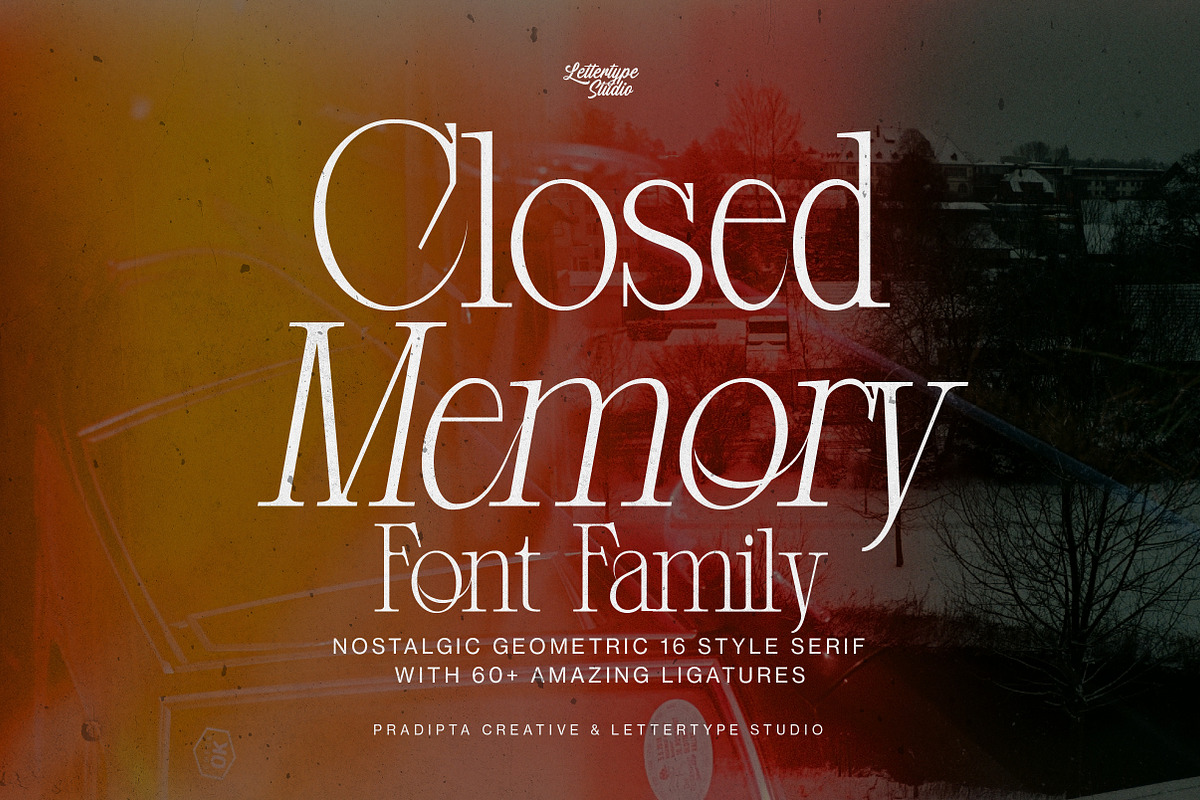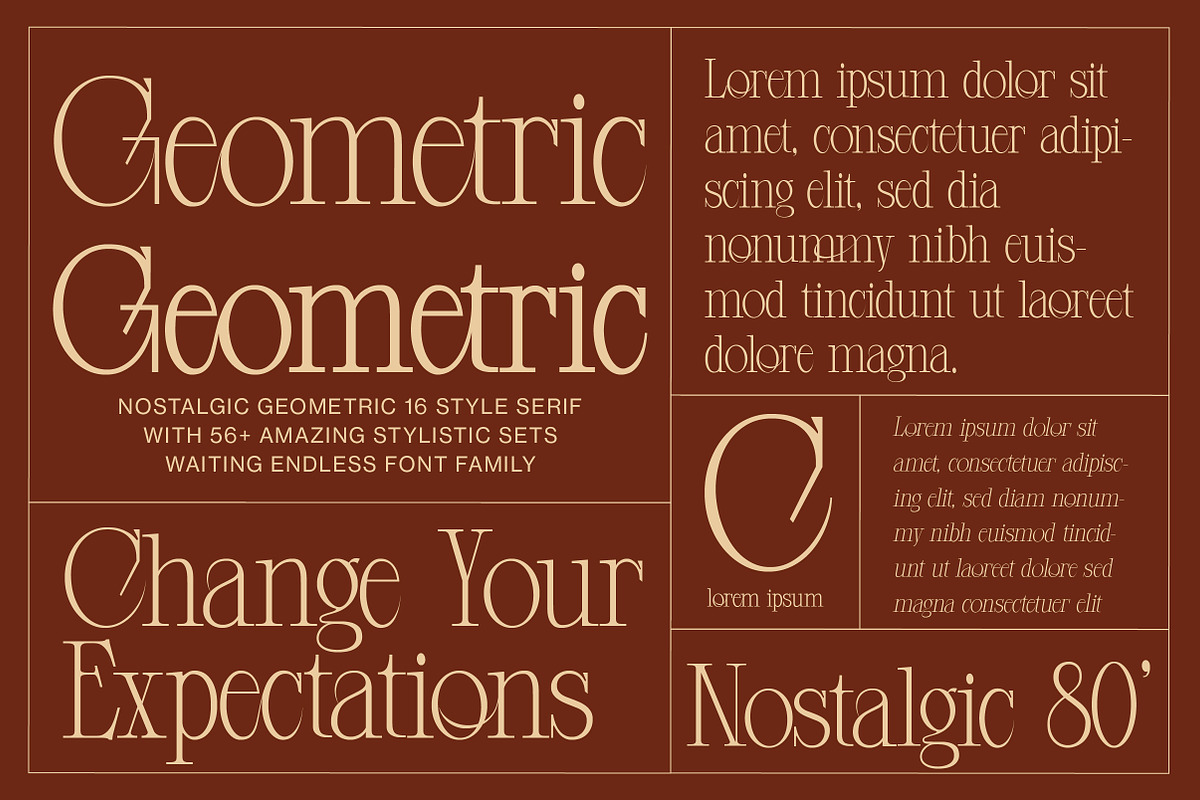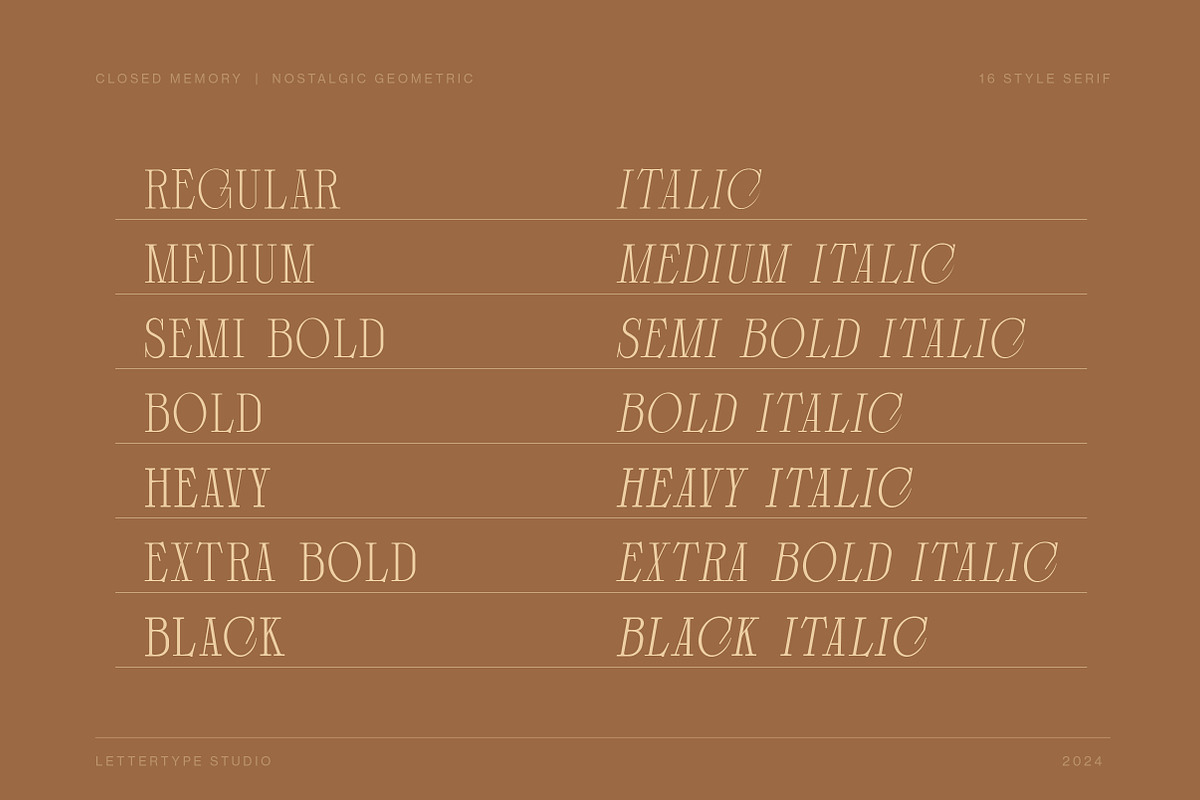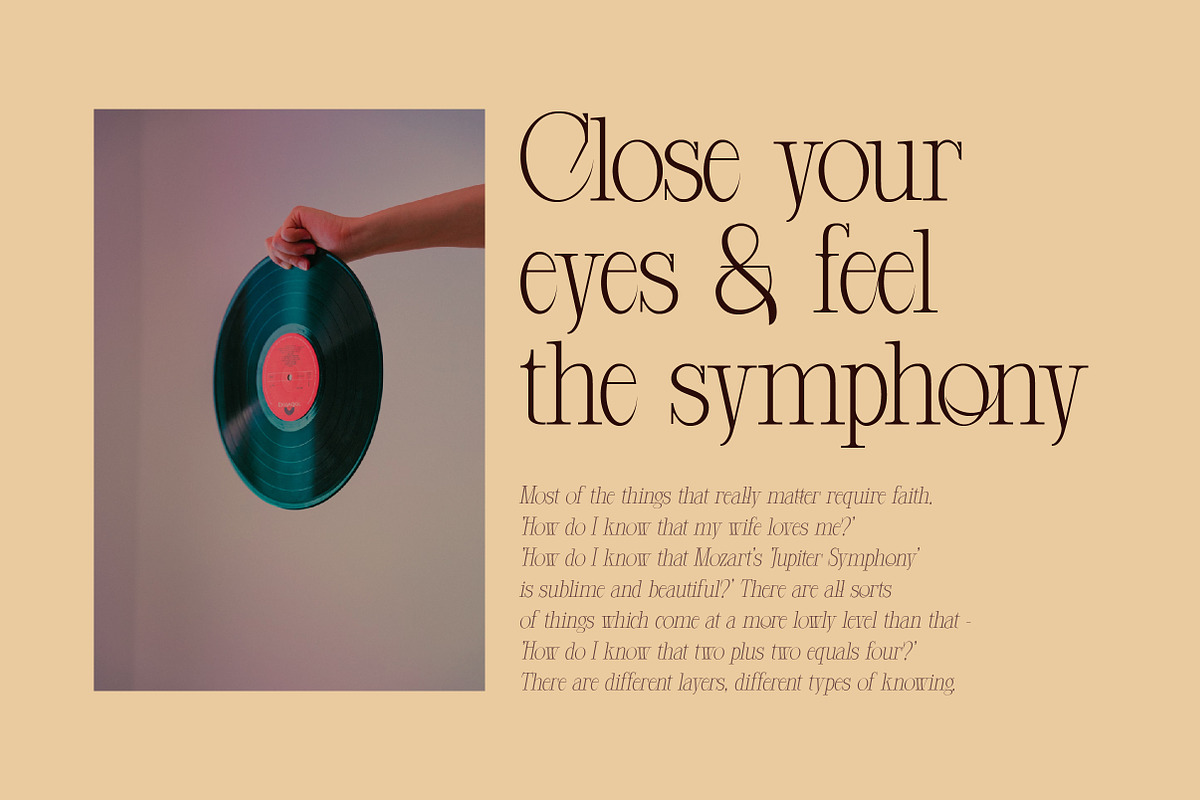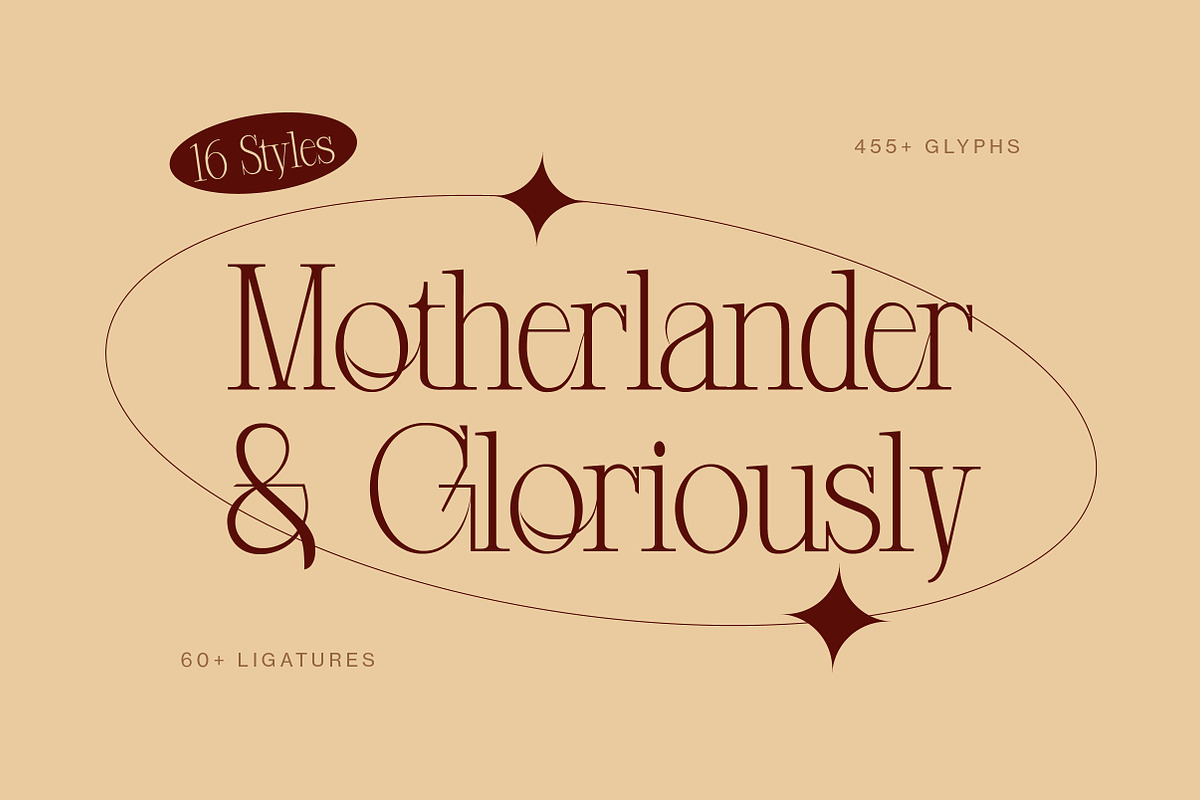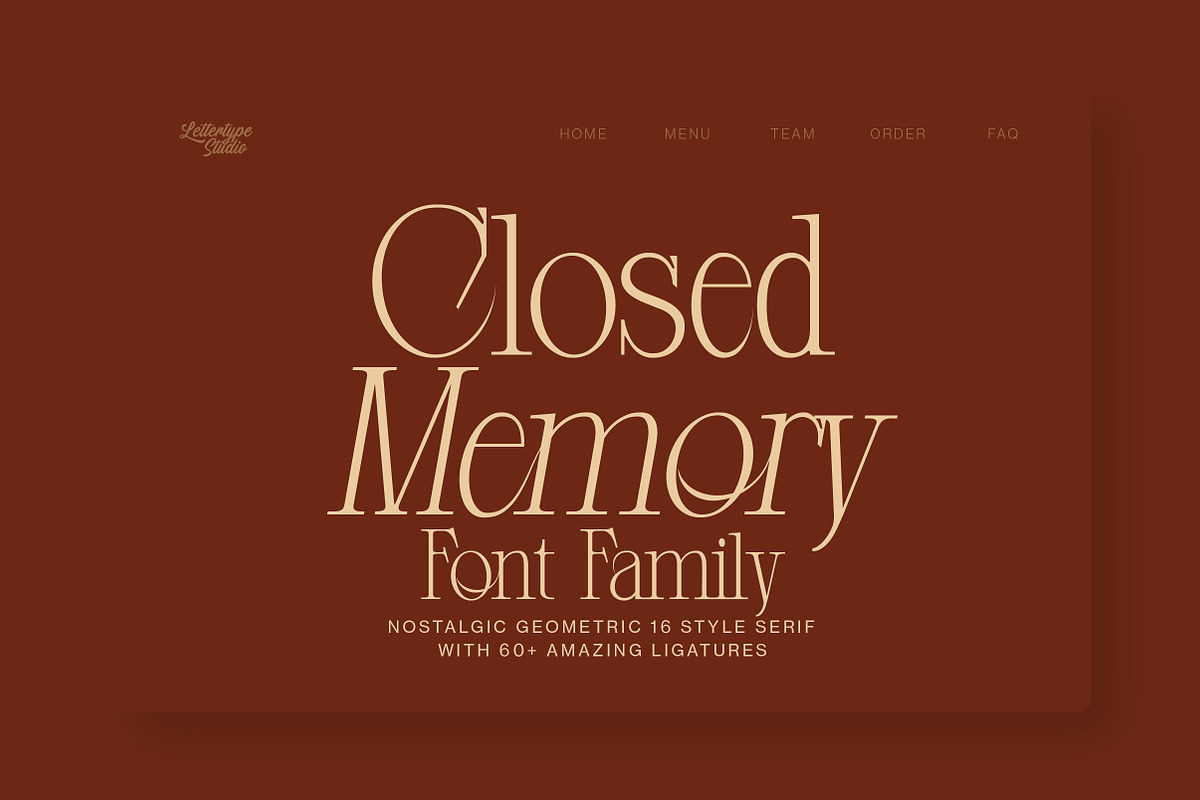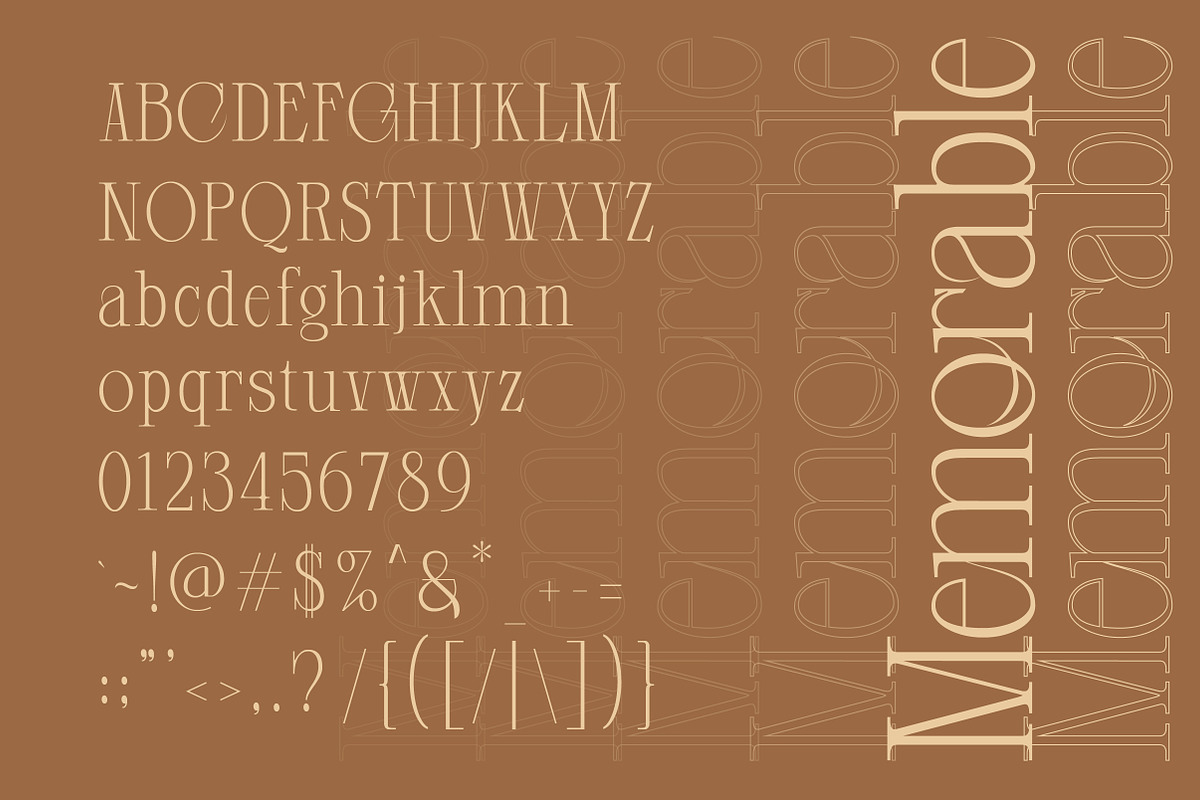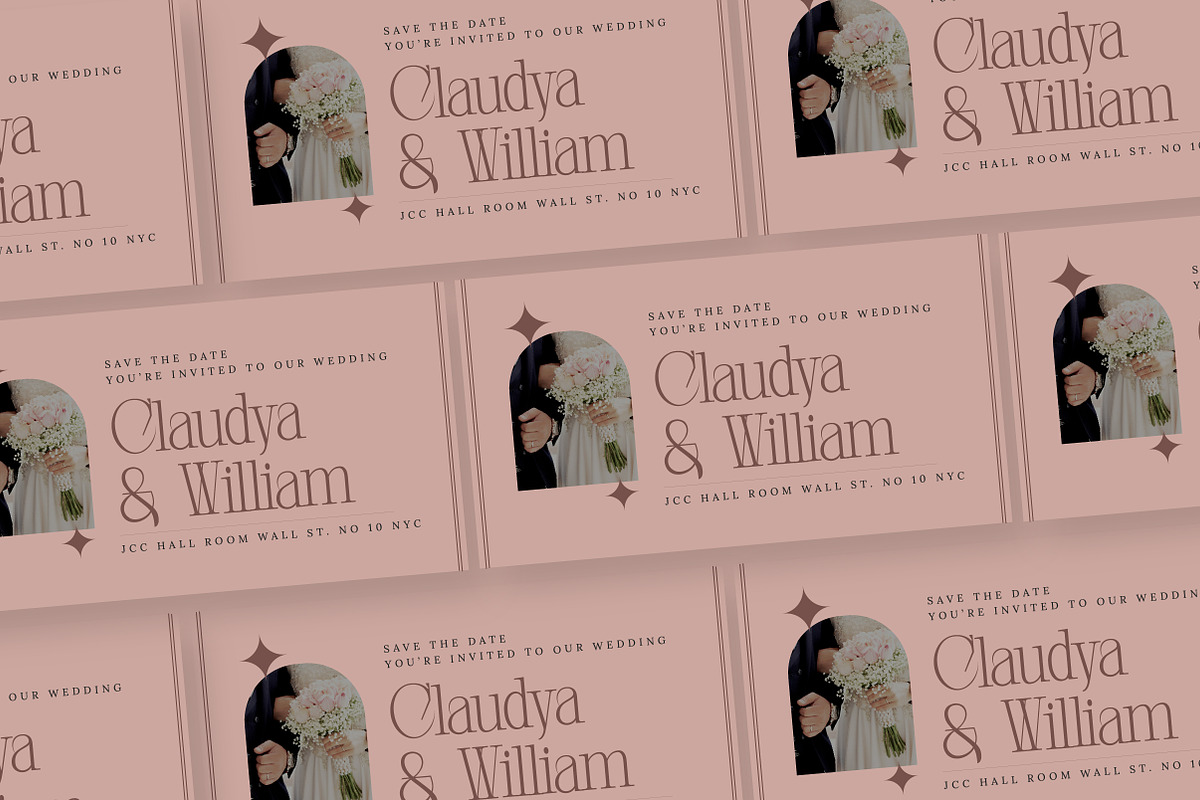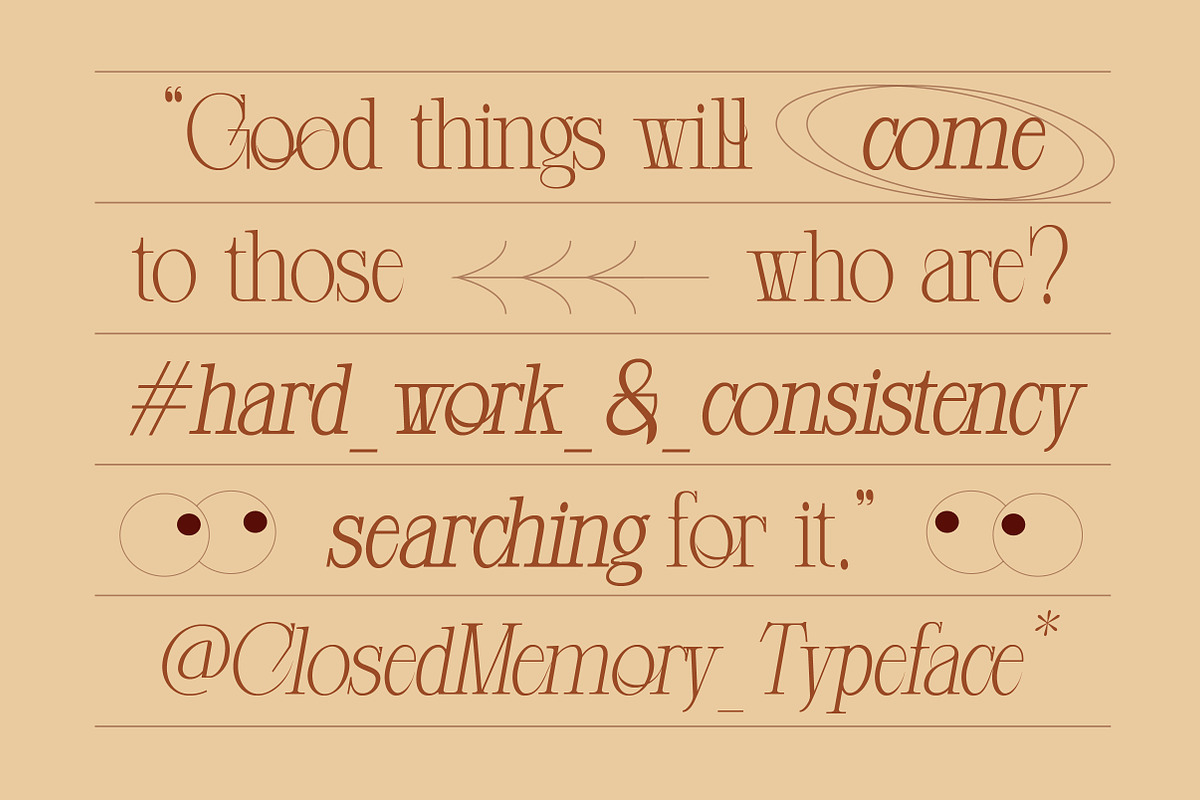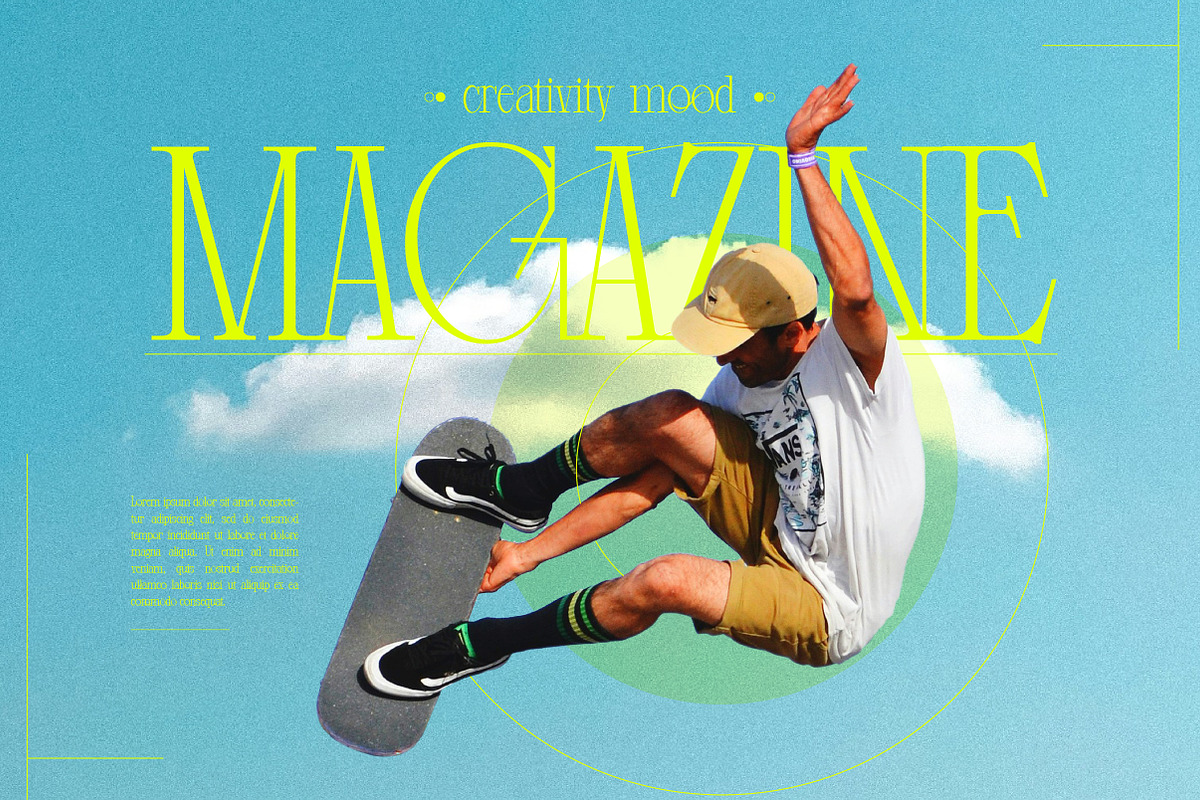
Closed Memory Nostalgic Editorial
Closed Memory is a Serif fonts with nostalgic 80s style often feature bold, geometric shapes and exaggerated serifs, evoking the vibrant and dynamic aesthetics of that decade. These fonts are characterized by their retro appeal, often incorporating elements like neon colors, pixelated designs, and futuristic vibes that are reminiscent of 80s pop culture, technology, and fashion.
Closed Memory Features:
- Lowercase & Uppercase
- Alternates & Ligature
- Font Family (16 Styles, Italic & Normal)